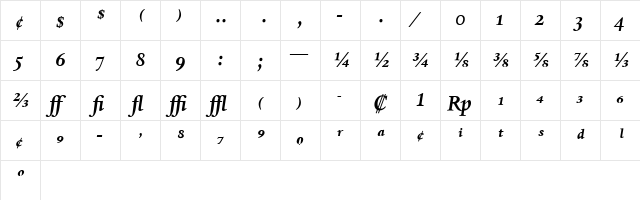
Dante Italic
Design Context for Dante Typeface
Dante is a composed and adaptable typeface that performs quietly and consistently across a wide range of design contexts. Its italic angle brings a sense of urgency and motion to the letterforms.
Pro Tip: Try Dante for annotation and caption copy alongside an upright companion — the contrast in angle creates a dynamic but ordered typographic system.